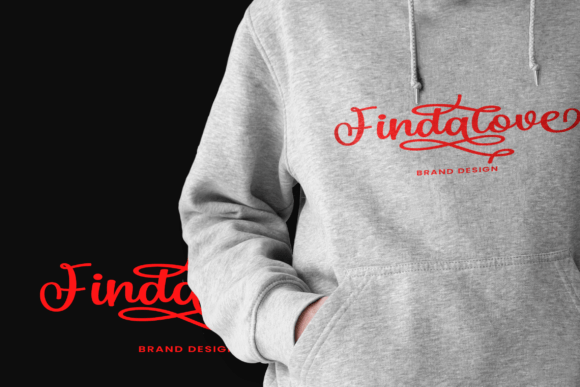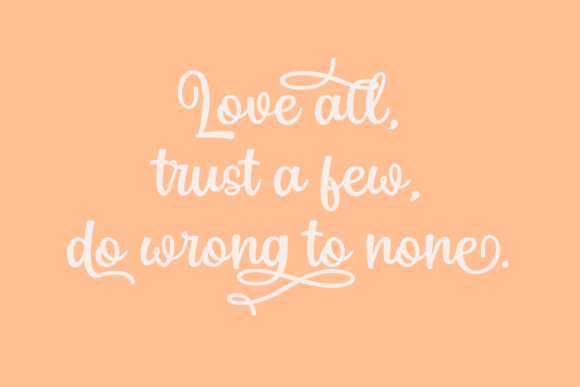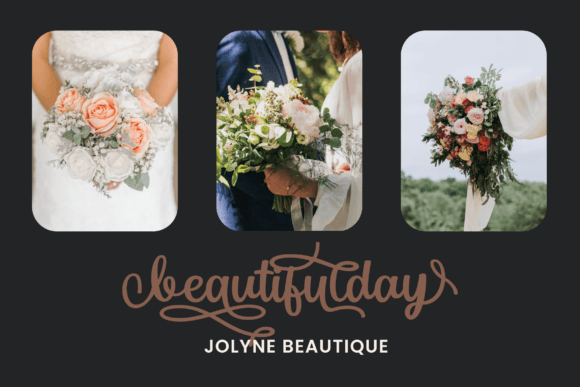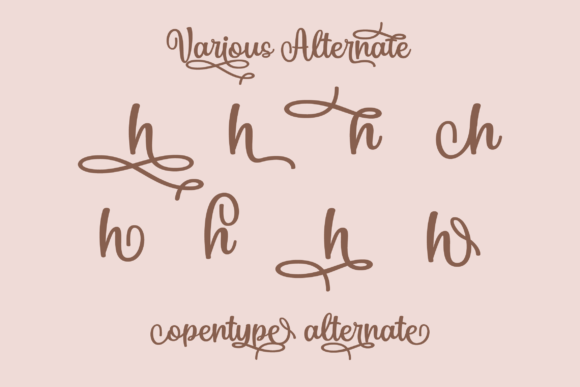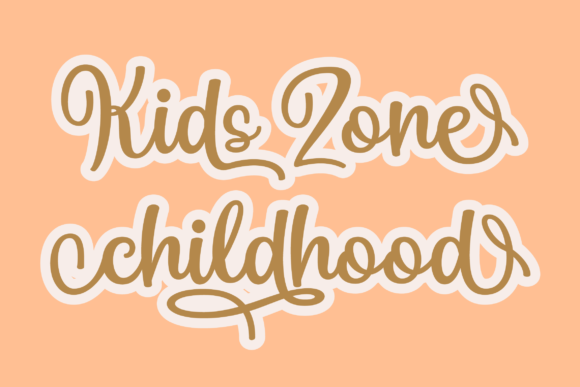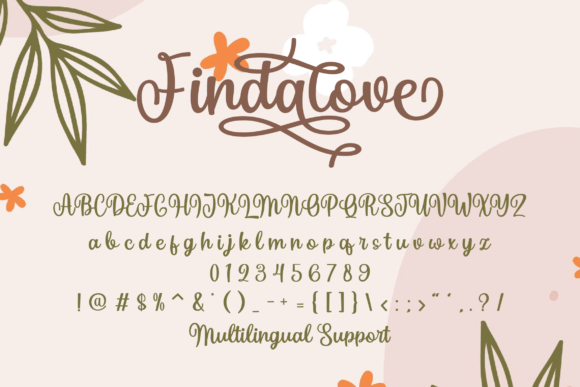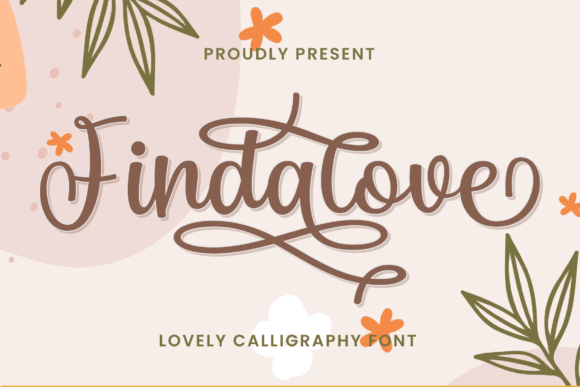
Introducing Findalove Font: Elevate Your Designs with Elegance and Whimsy
Are you on the hunt for a font that combines elegance with a dash of playfulness? Look no further than Findalove Font, a stunning script font designed to infuse your projects with a vibrant energy. Findalove is not just any ordinary font; it’s a creative powerhouse that enables you to craft beautiful, hand-made typography instantly. Its unique blend of bouncy curves and loops ensures that your text doesn’t just stand out—it shines.
The Perfect Blend of Elegance and Fun
Findalove Font strikes the perfect balance between sophistication and whimsy, making it an incredibly versatile tool for designers and crafters alike. Whether you’re working on a logo, a printed quote, an invitation, a card, product packaging, or even just a header, Findalove brings a level of charm and personality that can elevate any design. Its elegant script and fun, bouncy elements ensure that your work is not only visually appealing but also uniquely expressive.
Key Features of Findalove Font
• Fabulously Fun yet Elegant: Findalove combines the best of both worlds, offering a design that’s both sophisticated and playful.
• Tons of Energy: The font’s dynamic curves and loops inject a vibrant energy into your designs, making them more engaging and lively.
• PUA Encoded: Findalove is PUA (Private Use Area) encoded, which means accessing the extensive range of glyphs and swashes is straightforward, giving you unparalleled creative flexibility.
• Instant Hand-Made Typography: With Findalove, creating beautiful, hand-crafted typography has never been easier or faster.
• Perfect for Various Projects: From logos and quotes to invitations, cards, and product packaging, Findalove is the perfect companion for a wide array of design projects.
Unlock Endless Design Possibilities
The PUA encoding of Findalove Font is a game-changer for designers. This feature allows for easy access to a vast array of glyphs and swashes, enabling you to experiment with different styles and combinations. The result? Endless possibilities for customization and personalization, ensuring that your designs are always unique and reflective of your creative vision.
Why Choose Findalove Font?
In a world where design trends are constantly evolving, having a font that can adapt and shine across various contexts is invaluable. Findalove Font offers:
Versatility: Suitable for a broad spectrum of projects, from digital designs to print materials.
Uniqueness: Its distinctive bouncy curves and loops ensure your designs stand out in a crowd.
Efficiency: Being PUA encoded means you can work faster without compromising on creativity or quality.
Tips for Using Findalove Font
To make the most out of Findalove Font, consider the following tips:
Mix and Match: Don’t be afraid to combine Findalove with other fonts for a layered look or to highlight specific parts of your text.
Play with Sizes: Varying font sizes can add depth and emphasis to your designs.
Experiment with Colors: Findalove looks stunning in bold, vibrant colors, but it can also bring elegance in more subdued tones.
Findalove Font is more than just a script font; it’s a creative partner that can transform your designs with its elegant yet playful charm. Whether you’re a professional designer or a crafting enthusiast, Findalove offers the tools you need to bring your imagination to life. With its ease of use, versatility, and stunning aesthetic, Findalove Font is poised to become your go-to choice for projects that demand a little extra flair. So why wait? Dive into the world of Findalove and discover a new dimension of design possibilities.